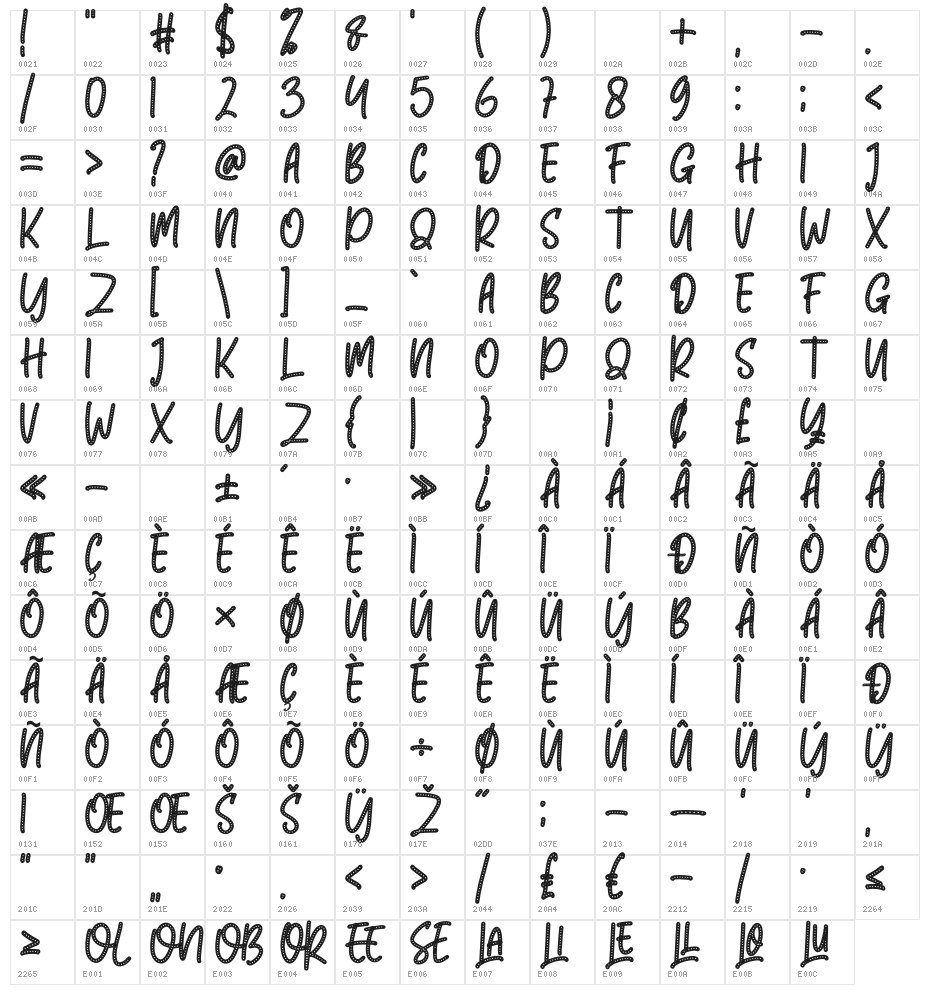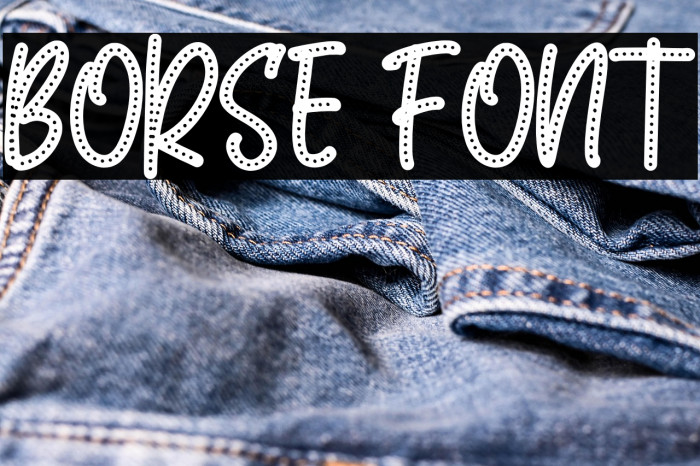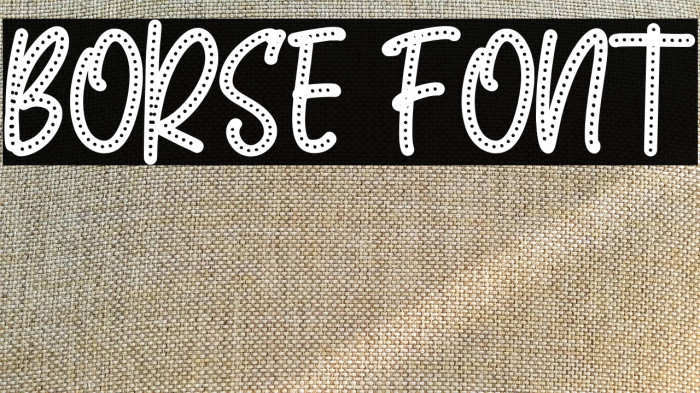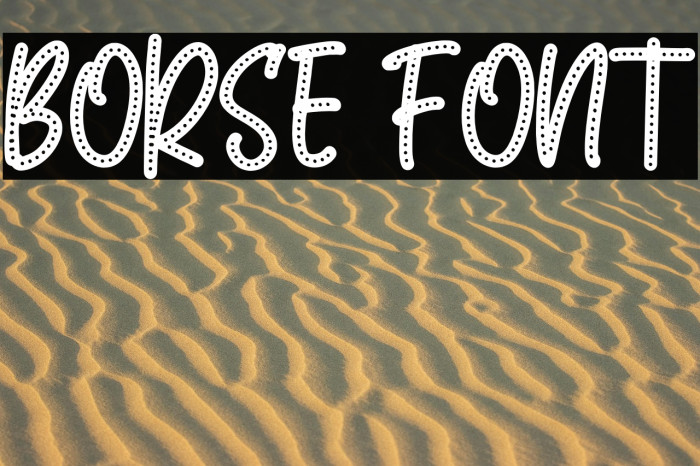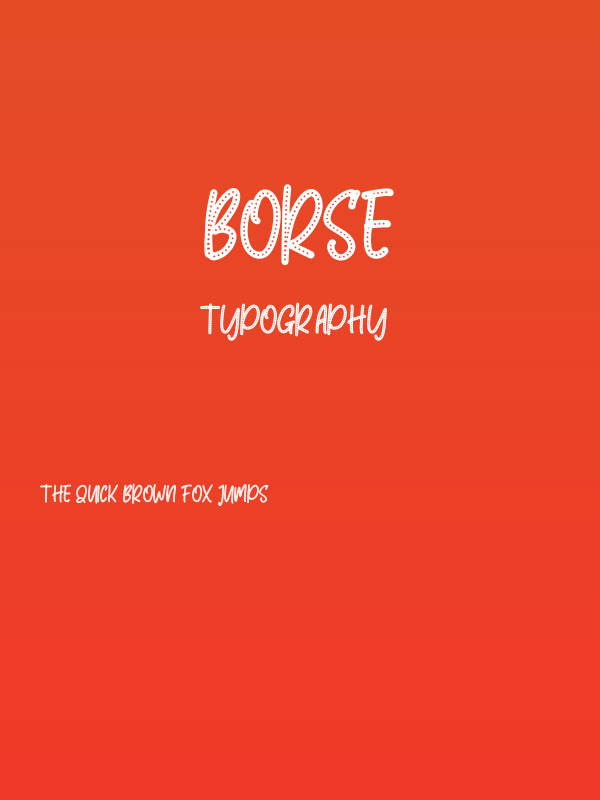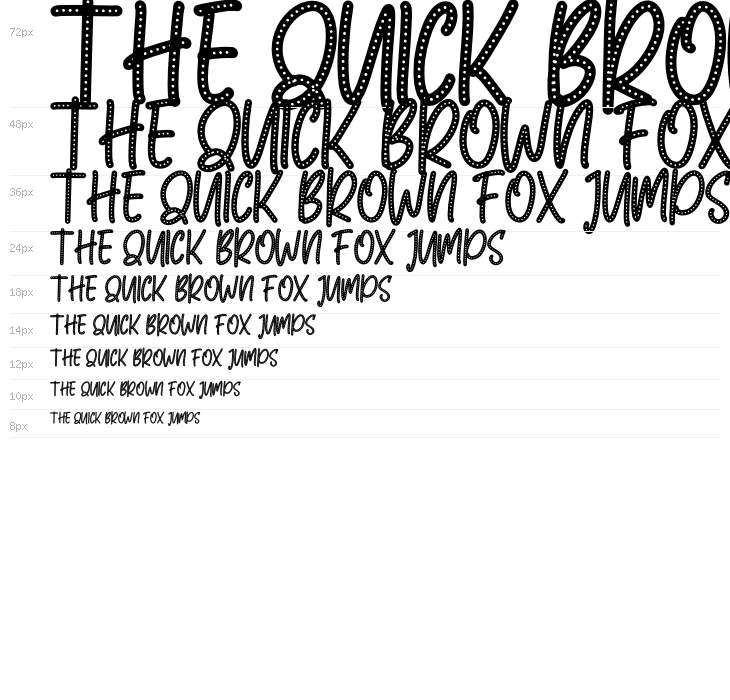
BORSE Font
BORSE Description
This playful and decorative font features a unique dotted outline style that adds a whimsical touch to each character. The letters are bold and rounded, with a consistent dotted pattern that gives them a lively and dynamic appearance. The uppercase and lowercase letters maintain a uniform height, while the numbers and special characters follow the same dotted theme, ensuring a cohesive look. This font is perfect for projects that require a fun and engaging aesthetic, such as children's books, party invitations, or playful branding materials.
Overall StyleDecorative
Use CaseHeadlines, Logos, Posters
Proposed ProjectsIdeal for children's books, party invitations, playful branding, and decorative posters.